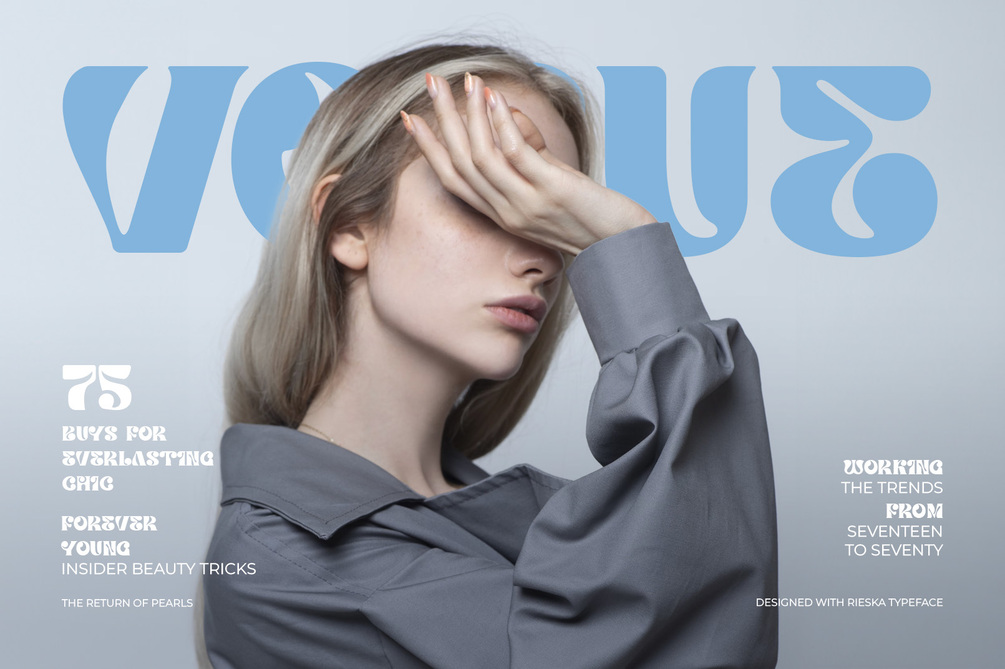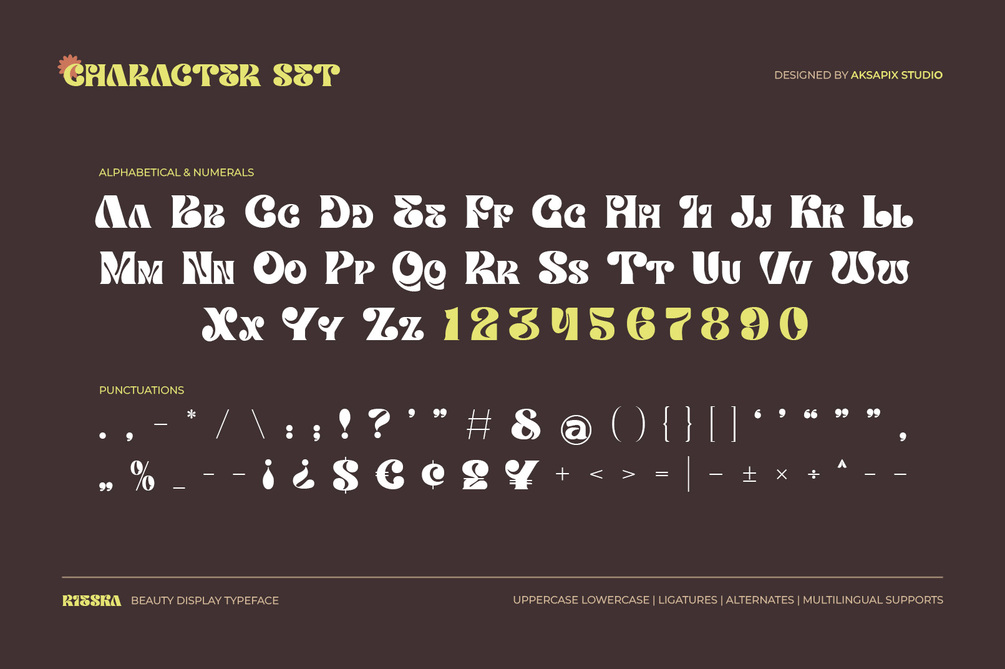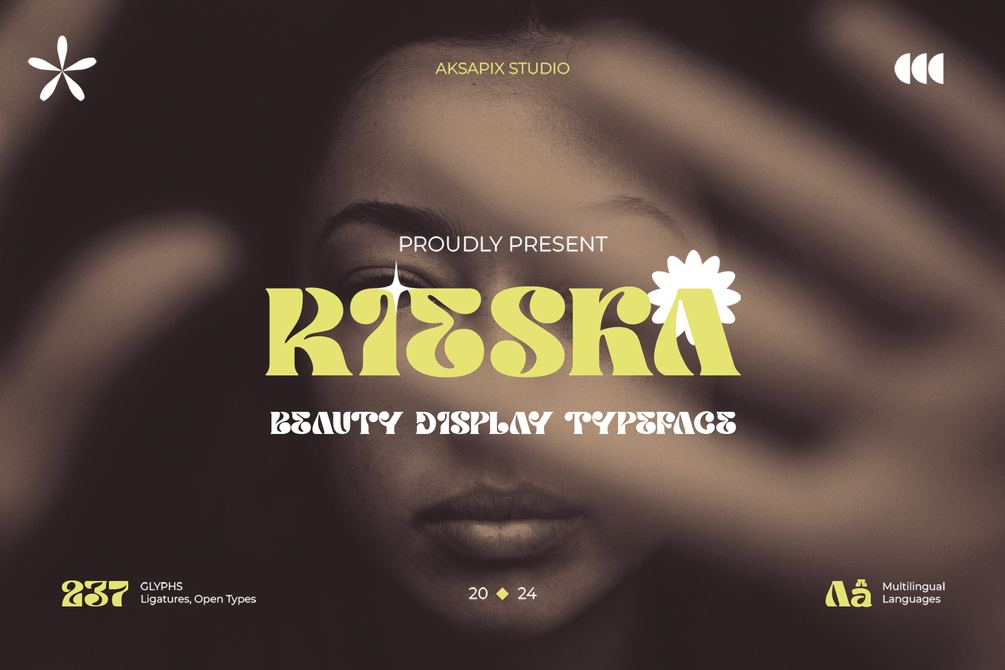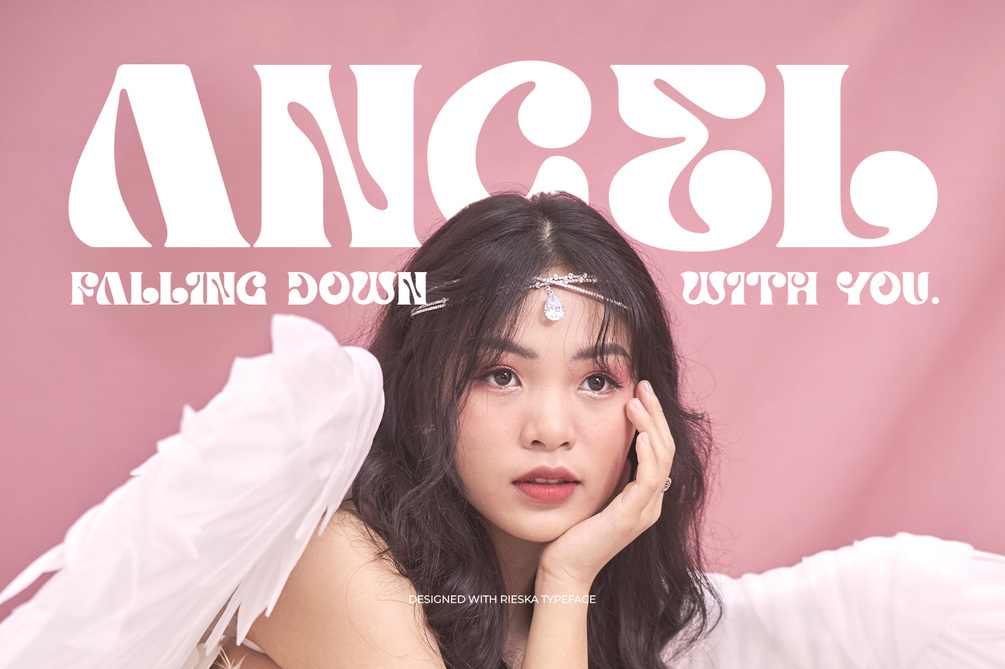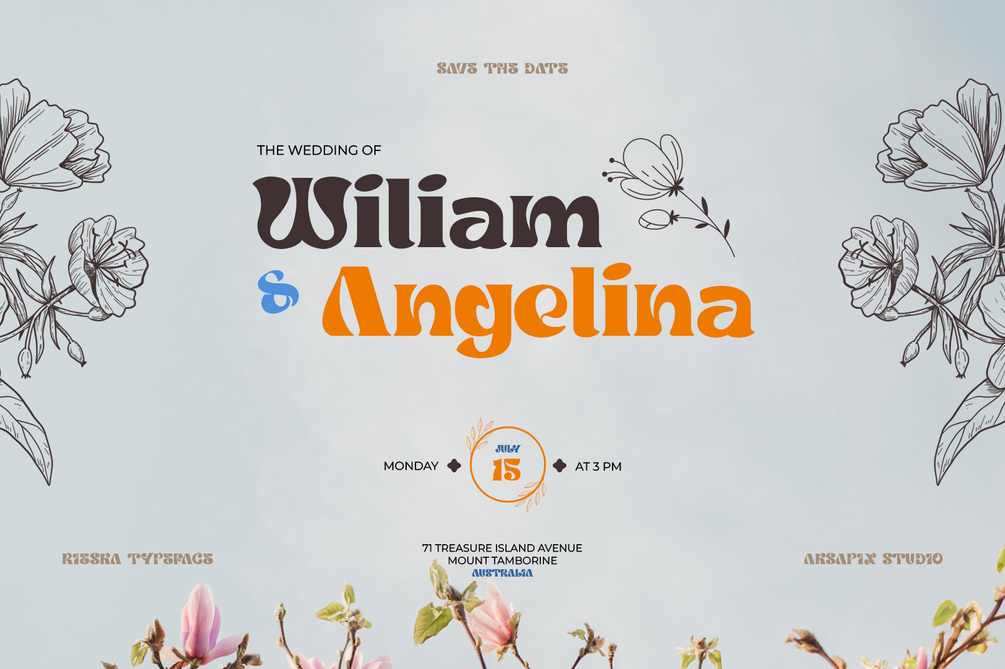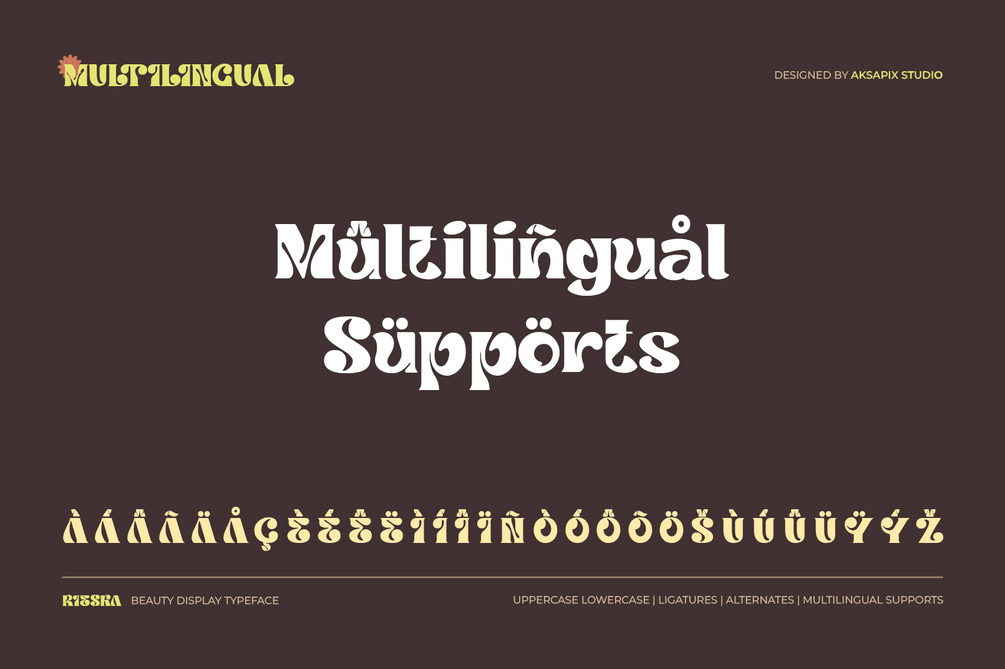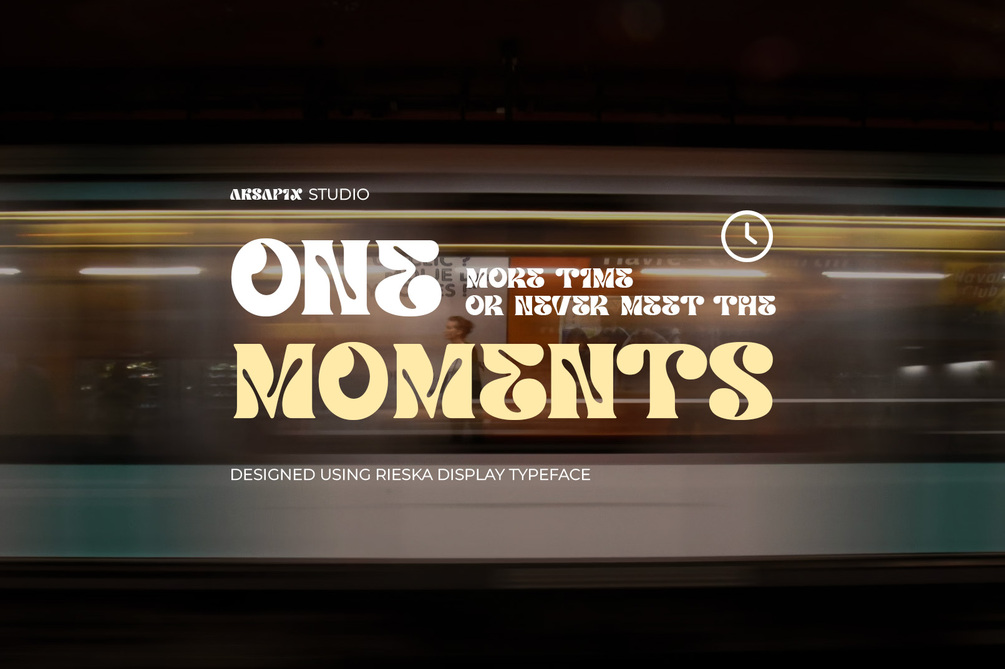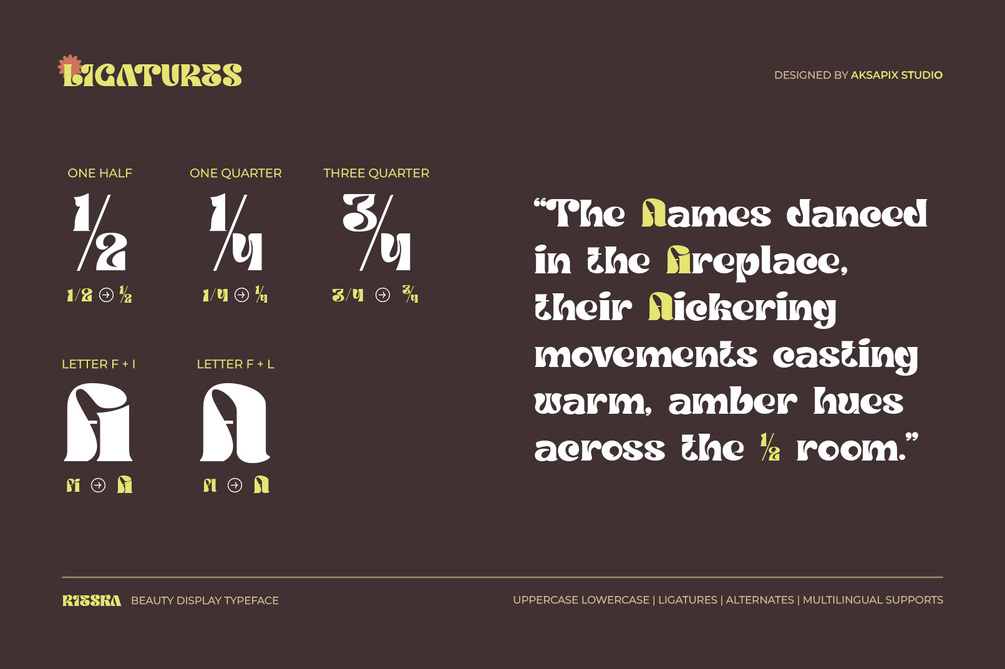
Rieska - Beauty Display Typeface
Introducing Rieska - Beauty Display Font
Unveil the essence of beauty in your designs with Rieska - a captivating display font that exudes elegance and charm. With its graceful curves and stylish flourishes, Rieska adds a touch of sophistication to any project, making it perfect for branding, signage, invitations, and more.
With 237 meticulously crafted glyphs, Rieska offers a wide range of characters and symbols to suit your creative needs, allowing you to create beautiful and unique compositions with ease.
Features:
• Uppercase & Lowercase
• Punctuation & Numbers
• Multilingual Support
• Stylistic Alternates
Elevate your designs with the timeless beauty of Rieska and let your creativity shine like never before.